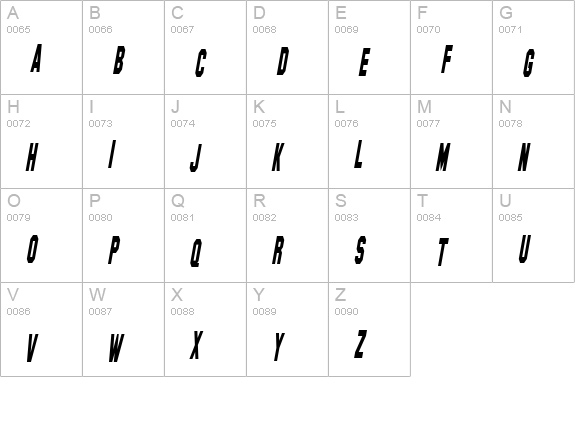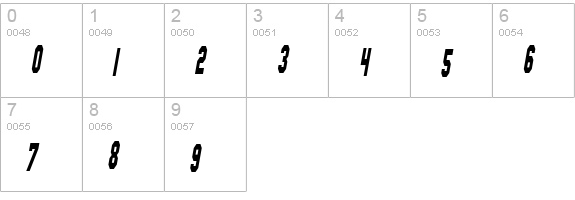
SF Hollywood Hills Condensed Italic Font Details
SF Hollywood Hills Condensed Italic is a distinctive, condensed-width, italic variant in the SF typeface family \xE2\x80\x94 well suited to design and typography projects.
SF Hollywood Hills Condensed Italic is a sleek and stylish font that brings a touch of sophistication to any design project. Its condensed form adds a sense of elegance and modernity, making it a perfect choice for headlines, titles, and logos. With its italic design, SF Hollywood Hills Condensed Italic exudes a sense of movement and energy, adding a dynamic flair to your text. Whether you are creating a poster, a website, or a branding project, this font will make your content stand out and leave a lasting impression. One of the best features of SF Hollywood Hills Condensed Italic is that it is available for free! You can easily download it from FontsMarket.com and start using it in your projects right away. This means that you can add a touch of class to your designs without breaking the bank. The versatile nature of SF Hollywood Hills Condensed Italic allows it to be used in a wide range of design styles and themes. Whether you are going for a minimalist look or a bold and vibrant aesthetic, this font will adapt and elevate your design to new heights. The clean and crisp lines of SF Hollywood Hills Condensed Italic give it a professional and polished appearance, making it suitable for both print and digital media. It is highly legible even at smaller sizes, ensuring that your message is clearly communicated to your audience. So why wait? Download SF Hollywood Hills Condensed Italic for free at FontsMarket.com and unlock a world of possibilities for your design projects. Whether you are a professional designer or a hobbyist, this font will help you bring your ideas to life with style and flair.